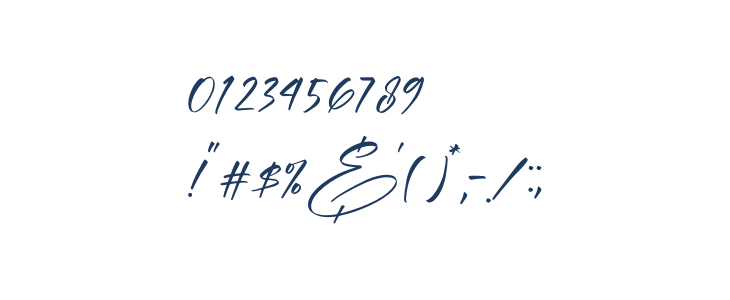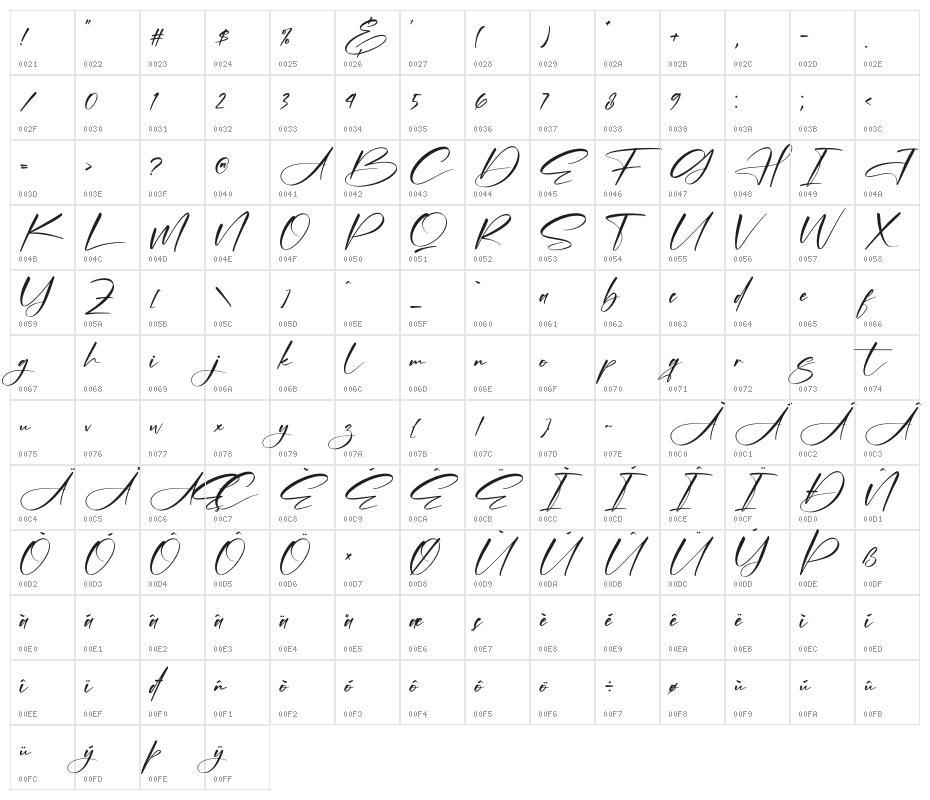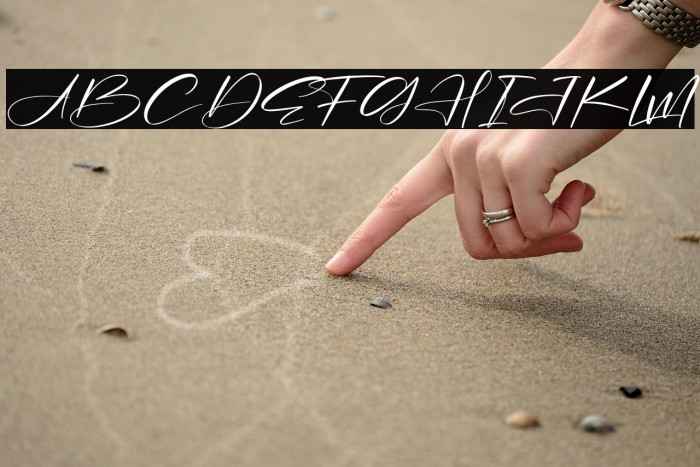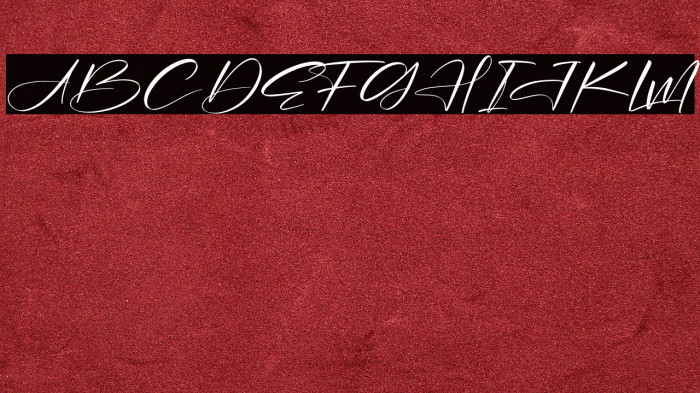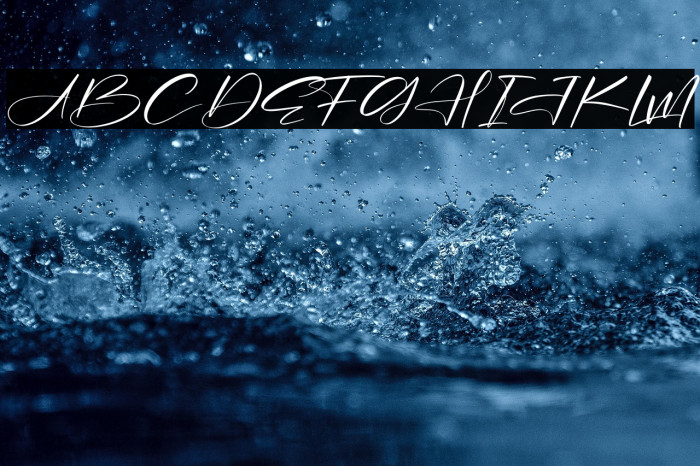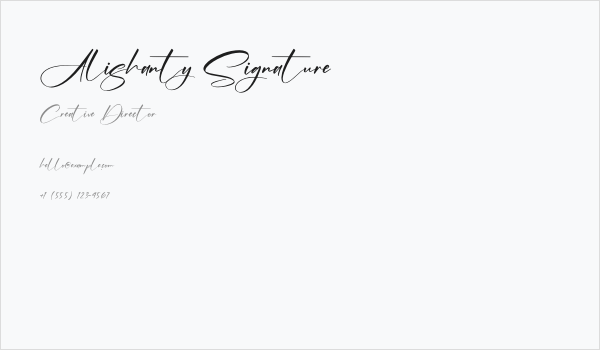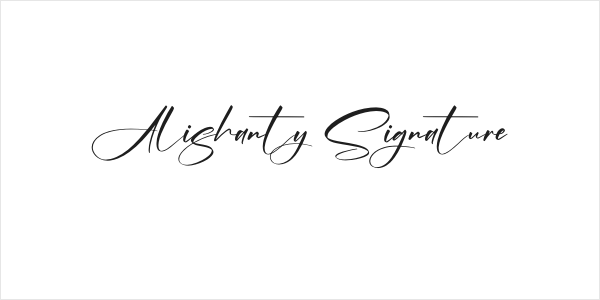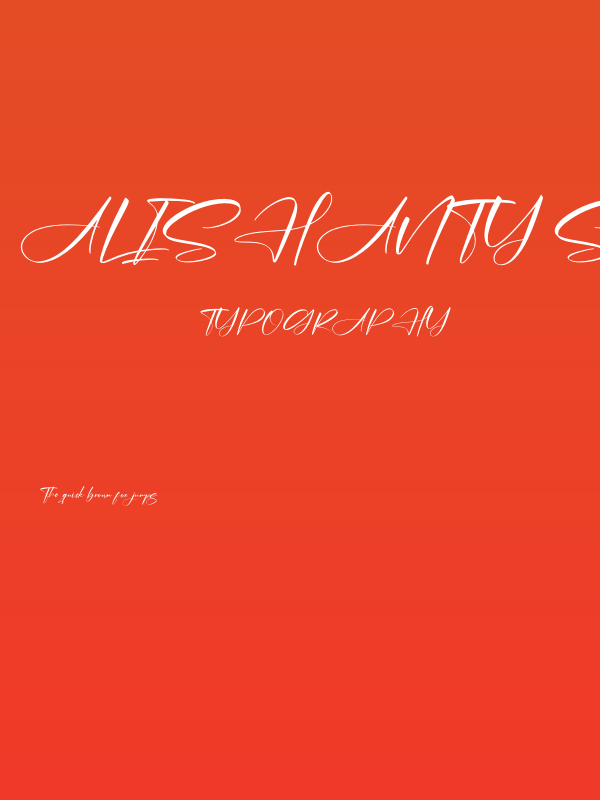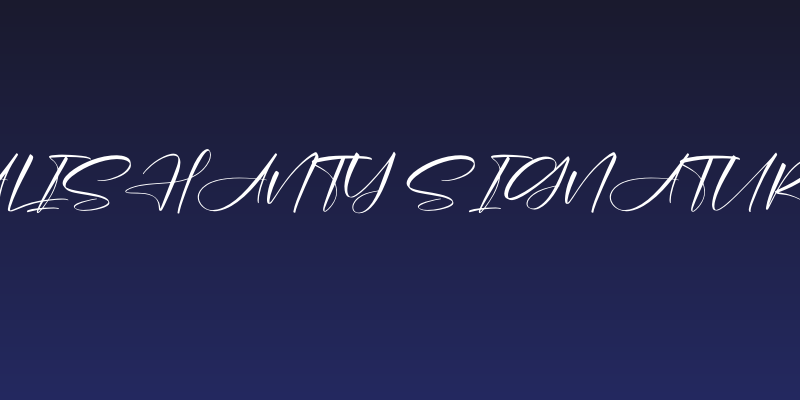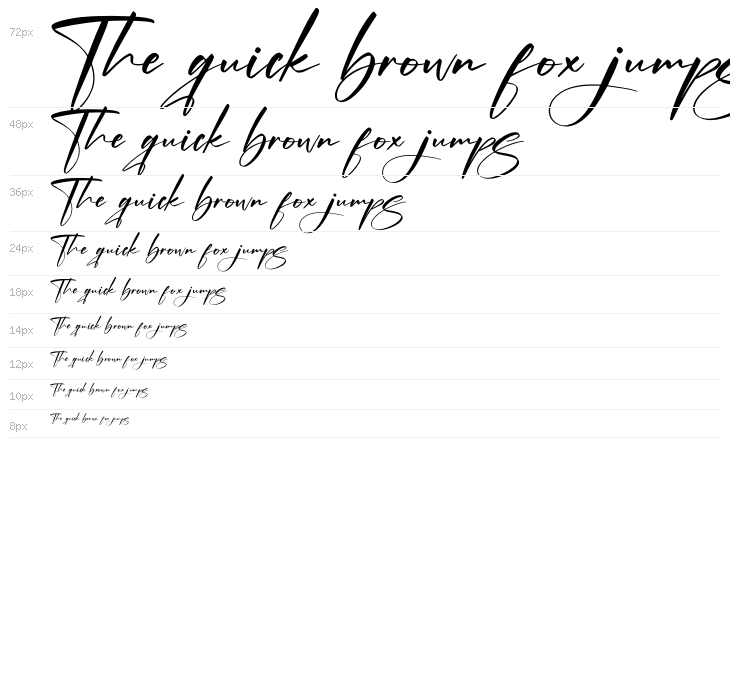
Alishanty Signature Font
Alishanty Signature Description
This font exudes elegance and sophistication with its fluid, cursive style. The letters are intricately designed with sweeping curves and delicate strokes, creating a sense of movement and grace. The uppercase letters are particularly striking, with their elongated forms and stylish flourishes. The lowercase letters maintain a consistent flow, complementing the uppercase with their own unique charm. Numbers and special characters are crafted with the same attention to detail, ensuring a cohesive look across all elements. This font is perfect for projects that require a touch of class and refinement.
| Overall Style | Elegant, Sophisticated |
| Proposed Projects | Ideal for wedding invitations, luxury branding, personal signatures, and elegant stationery. |